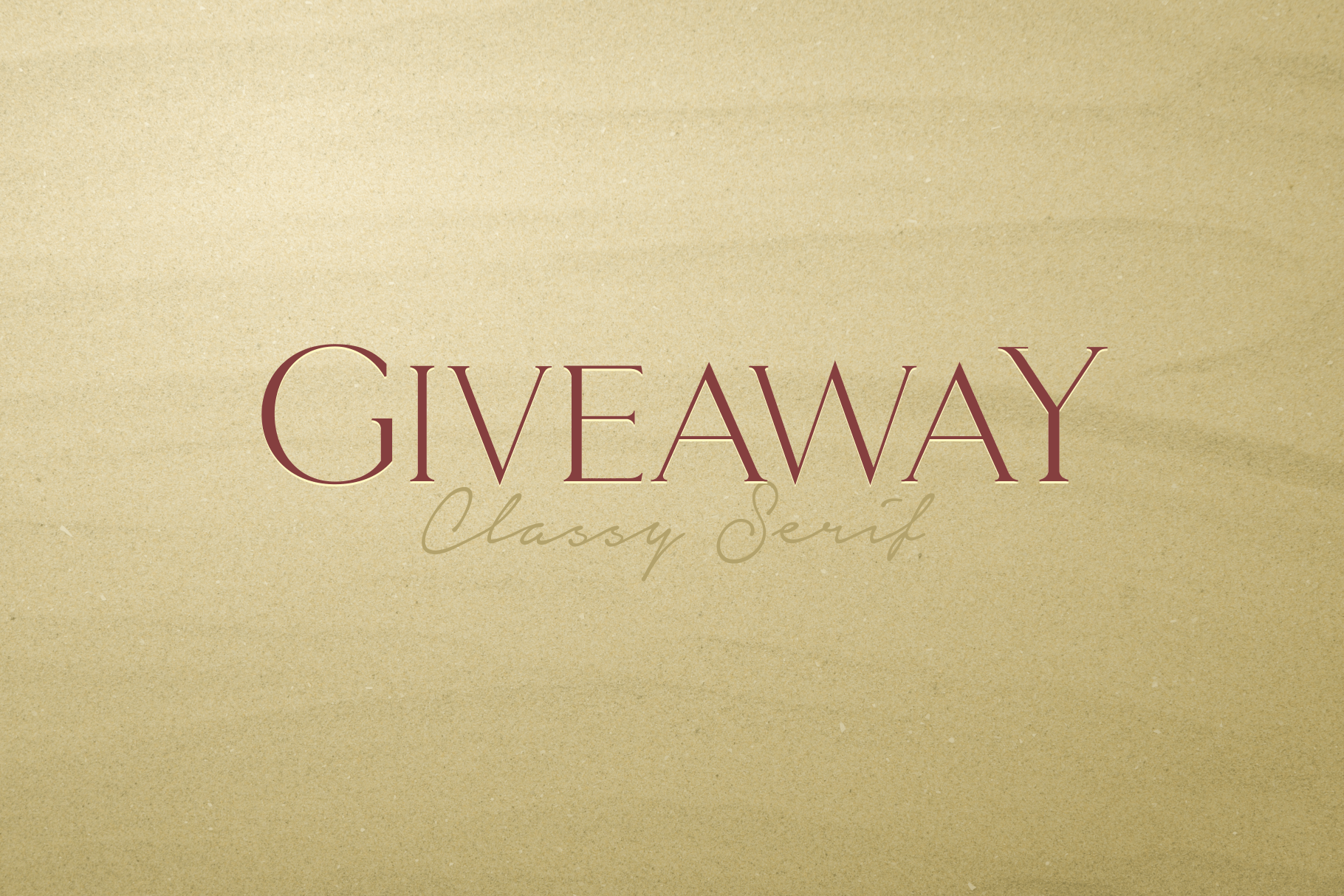
Giveaway
-Classy Serif Font
Giveaway - Classy Serif Font
Giveaway is a stylish classy serif font with a casual-chic personality and elegant letterform style. Designed for designers who need a sophisticated and versatile typeface, Giveaway brings a balance between classic serif details and modern visual aesthetics.
This classy serif font is perfect for luxury branding, logo design, wedding invitations, packaging, hangtags, social media designs, editorial layouts, and creative marketing materials. Its refined character helps create elegant and memorable visual identities for premium brands.
Giveaway includes beautifully crafted uppercase and lowercase letters, numerals, punctuation, and multilingual support to help designers create professional typography compositions.